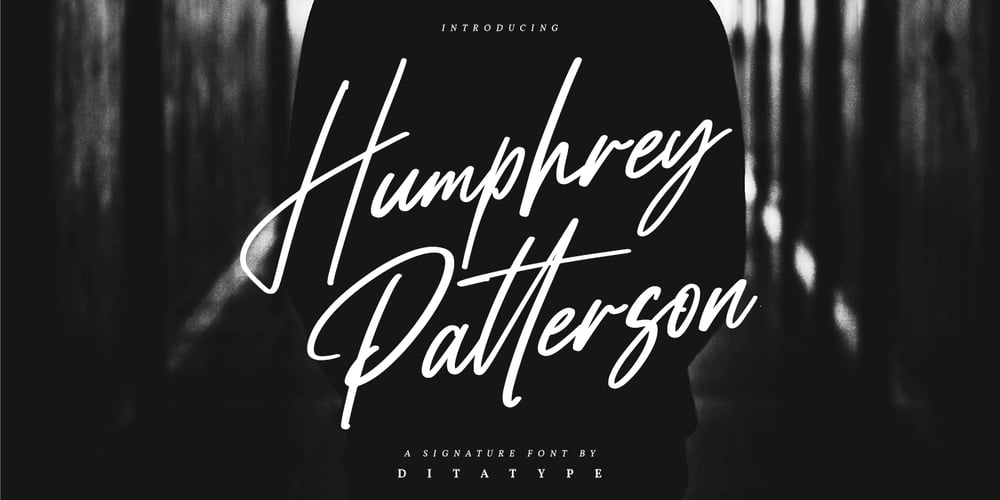
Humphrey Patterson Font Family was designed by Donis Miftahudin and published by Ditatype. Humphrey Patterson contains 1 styles and family package options. Humprey Patterson is beautiful handwritten font, made to become a true favorite. This is a stunning combination of timeless elegance and authentic calligraphy. Humprey Patterson is the perfect font for making original and outstanding designs, both formal and informal.Featured : Accents (Multilingual characters) PUA encoded Numerals and Punctuation (OpenType Standard) Full Support Dita Type